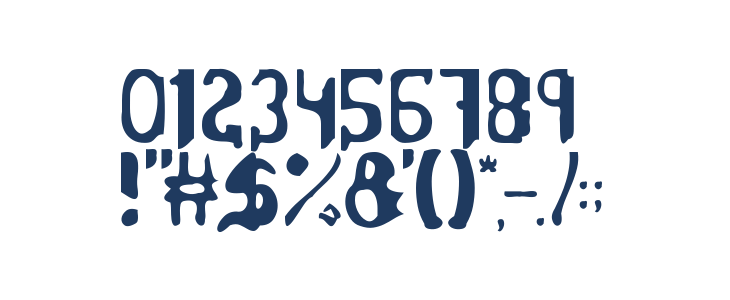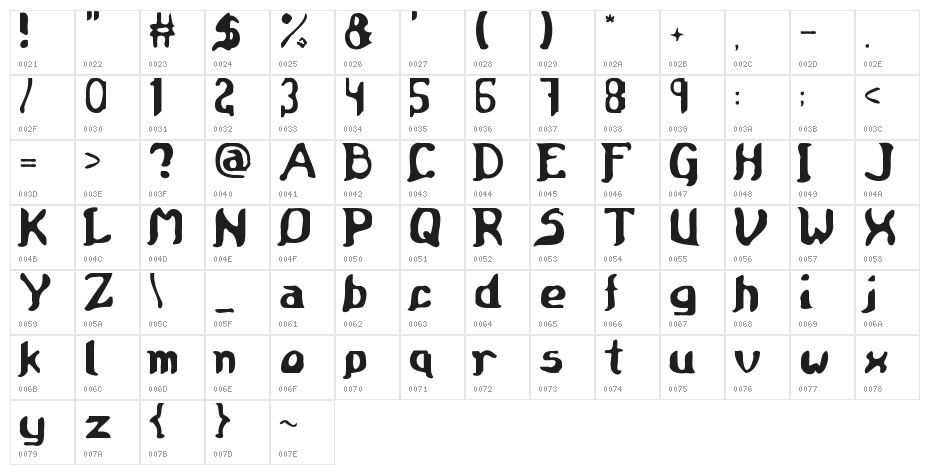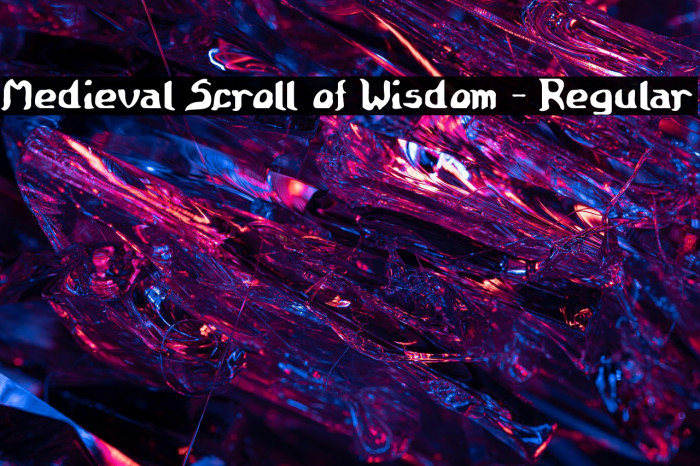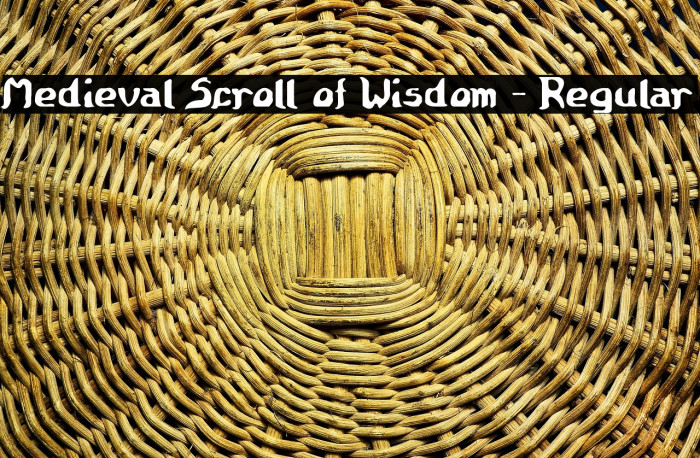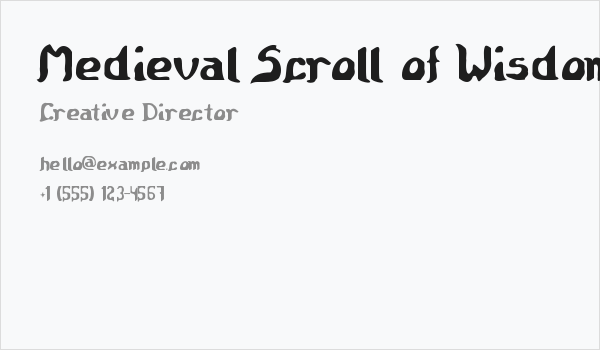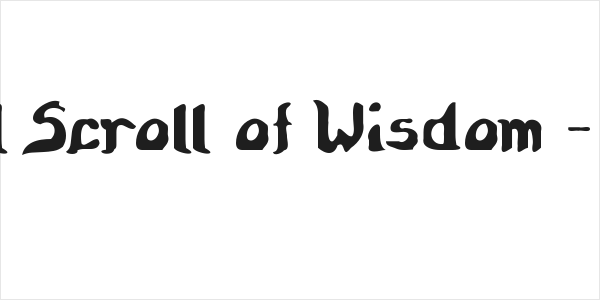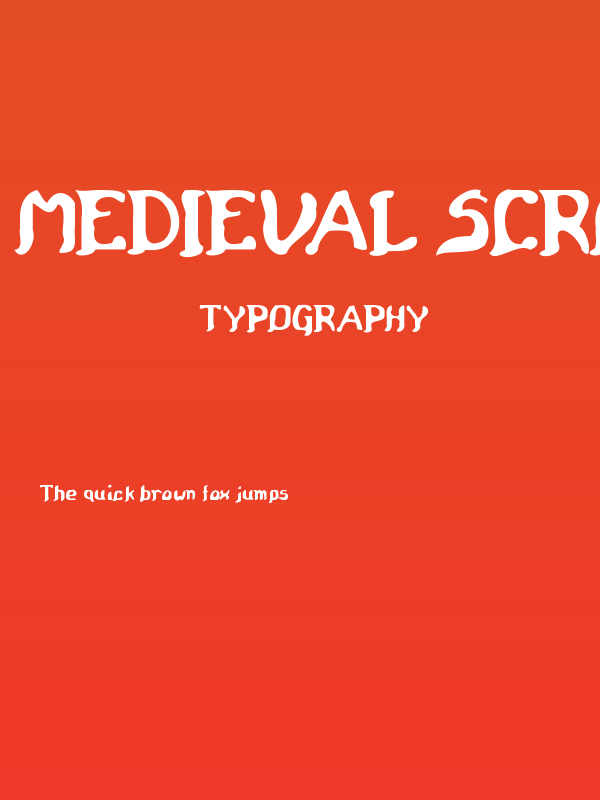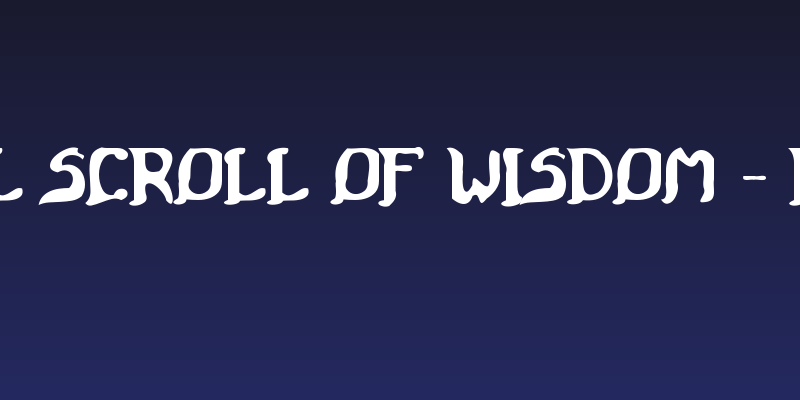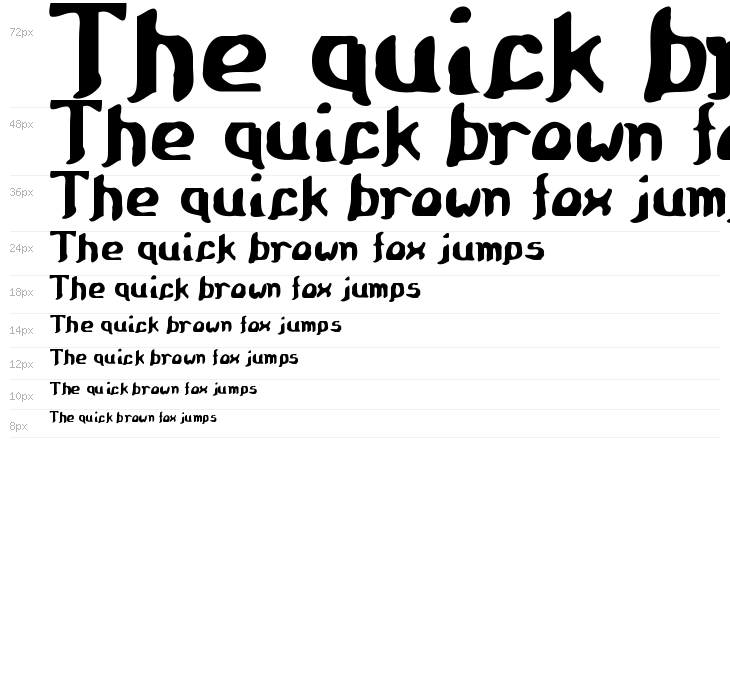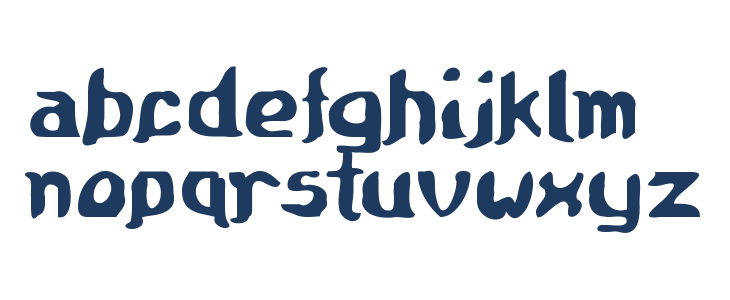
Medieval Scroll of Wisdom - Regular Font
Medieval Scroll of Wisdom - Regular Description
This font exudes a medieval charm, reminiscent of ancient scrolls and manuscripts. The characters are bold and slightly irregular, giving them a hand-crafted appearance. The uppercase letters are tall and commanding, while the lowercase letters maintain a consistent style with a touch of whimsy. Numbers are robust and clear, ensuring readability. Special characters are creatively designed, adding to the overall medieval aesthetic. The font's unique style makes it perfect for projects that require a historical or fantasy theme.
| Proposed Projects | Ideal for fantasy book covers, historical event posters, themed invitations, and video game graphics. |